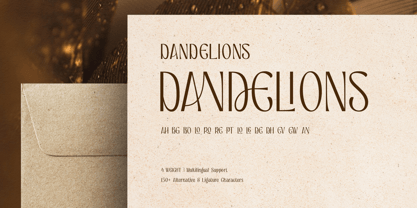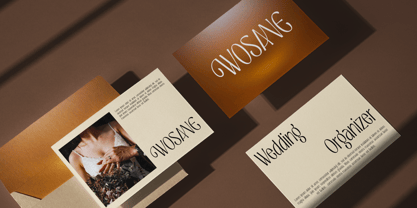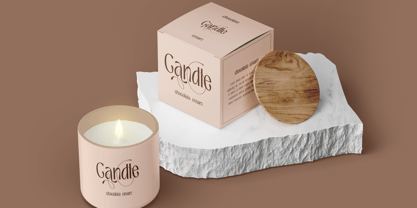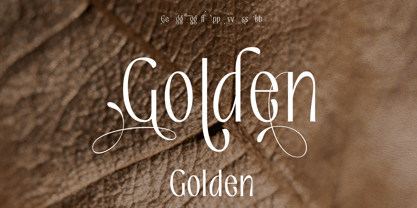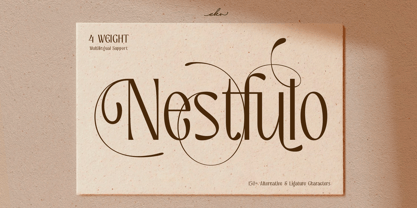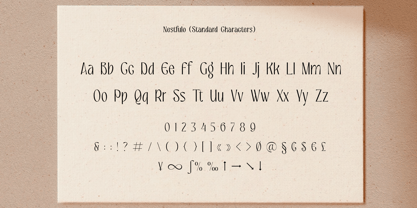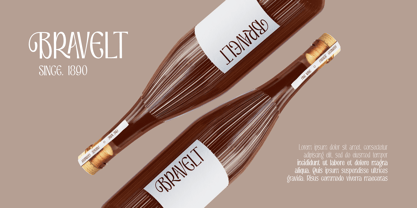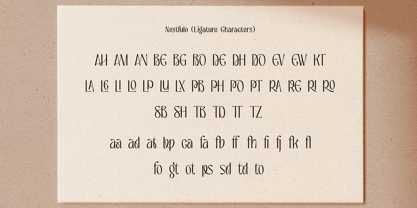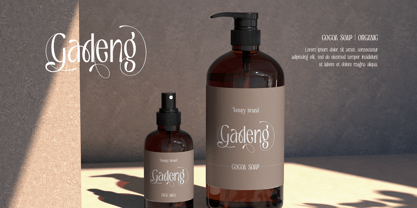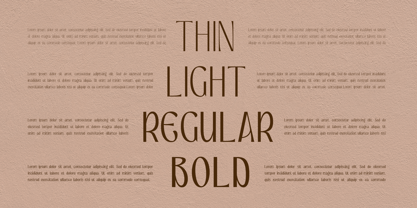
Nestfulo
by Ekahermawan
The Nestfulo Font Family was designed by Putu Eka Hermawan and published by Ekahermawan. Nestfulo contains 4 styles and family package options. More about this family
Nestfulo is a luxurious display font that blends modern minimalism with artistic elegance. Featuring dramatic contrast, refined curves, and graceful flourishes, Nestfulo turns every word into a striking visual statement. Packed with 150+ stylistic alternates and unique ligatures, this font gives you endless design possibilities—from sophisticated logos and high-fashion branding to magazine headlines, packaging, and wedding invitations. With 4 weights Thin, Light, Regular, Bold and full multilingual support, Nestfulo adapts beautifully to diverse creative needs while maintaining its distinct charm.
Features:
- Elegant display style with artistic swashes and flourishes
- High-contrast strokes for a luxurious look
- 150+ alternates & ligatures for custom typography
- Multilingual support
- 4 weights from Thin to Bold
Nestfulo isn’t just a font—it’s your gateway to bold, elegant, and unforgettable designs.
Designers: Putu Eka Hermawan
Foundry: Ekahermawan